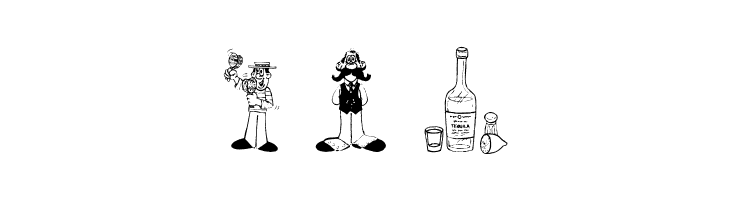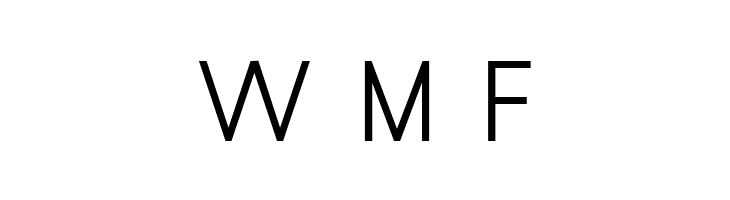
A modern, italic font with a sleek, geometric design and uniform spacing.
A decorative font with space-themed icons and symbols, perfect for creative projects.
A bold, angular font with a futuristic, space-age design.
A bold, geometric font with a futuristic and modern design.
A bold, playful font with star cutouts and a dynamic tilt.
A vintage, bold serif font with a distressed, newspaper-like appearance.
A bold, outlined font with a geometric, spacious design and rounded edges.
Decorative font with space-themed elements.
Cartoonish space-themed dingbat font with unique illustrated glyphs.
Cartoonish, space-themed illustrative font with unique drawings for each character.
A bold, dramatic font with sharp, angular edges and a gothic flair.
Cartoonish, illustrative font themed around Hispanic and Spanish culture.
A modern, condensed sans-serif font with a clean and streamlined appearance.
A modern, condensed sans-serif font with a clean and professional appearance.
Cartoonish space-themed dingbat illustrations.
Playful dingbat font of space-themed cartoon characters and objects.
A collection of whimsical space-themed illustrations featuring unique and imaginative creatures.
Abstract, geometric display font with a futuristic, space-inspired theme.
A whimsical, dotted font with sparkles, perfect for playful and creative designs.
A playful, starry decorative font with a whimsical, sparkling design.
A futuristic, geometric font with a neon-inspired, outlined design.
A vintage, distressed font with bold, prominent characters ideal for nostalgic designs.
A bold, angular font with a futuristic and edgy style.
A dynamic, angular font with a futuristic and edgy design.
A geometric and futuristic font with angular, linear design.
A clean and modern sans-serif font with consistent stroke width and balanced spacing.